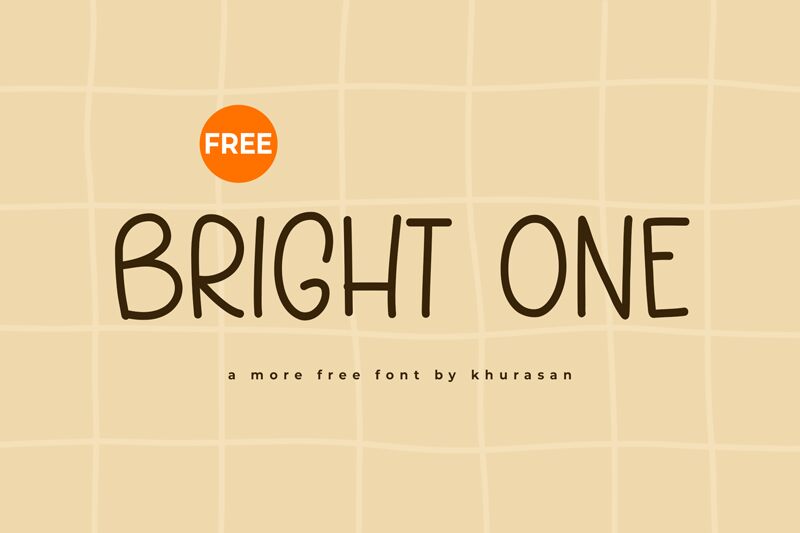
Bright One
Bright One font by Khurasan is an expressive handwritten font inspired by casual handwritten ink. Each letter appears as if drawn by the relaxed hand of a human writer. With an informal, designer-friendly tone, this typeface has a contemporary relaxing vibe that can transfer the same effect to any project it is used in.
A free handwritten font with use cases including headings, book covers, t-shirts, posters and banners; the list goes on and on! This display font will also look incredible in several printed product packages or advertisements. It will definitely take center stage when used in invitations whether digital or printable ones.